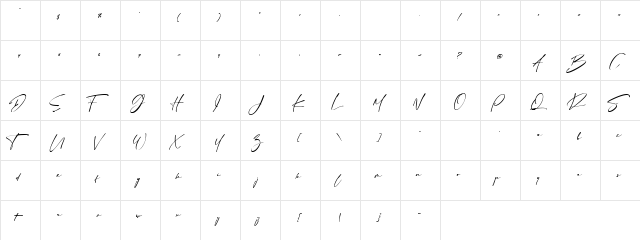
Sign Style DEMO Regular
Design Context for Sign Style DEMO Typeface
Sign Style DEMO is a composed and adaptable typeface that performs quietly and consistently across a wide range of design contexts.